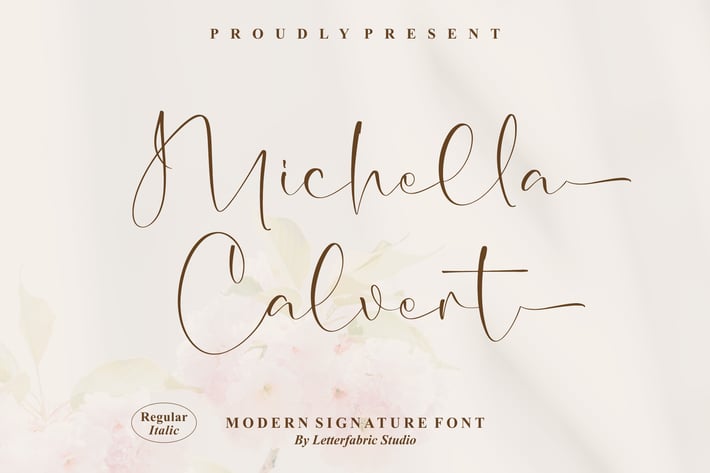
Michella Calvert Signature Font
Michella Calvert is a refined modern signature font designed to feel personal, elegant, and effortlessly stylish. With its natural handwritten flow and balanced strokes, this font captures the charm of authentic signatures while maintaining a clean, contemporary look.
Modern signature-style script
Smooth, natural handwritten flow
Includes Regular & Italic styles
Elegant ligatures and subtle swashes
Personal branding and signature logos
Fashion, beauty, and lifestyle brands
Wedding stationery and invitations
Social media posts and quotes
Minimalist packaging and editorial design
Simple, classy, and undeniably personal — a signature font made to leave a lasting impression.*